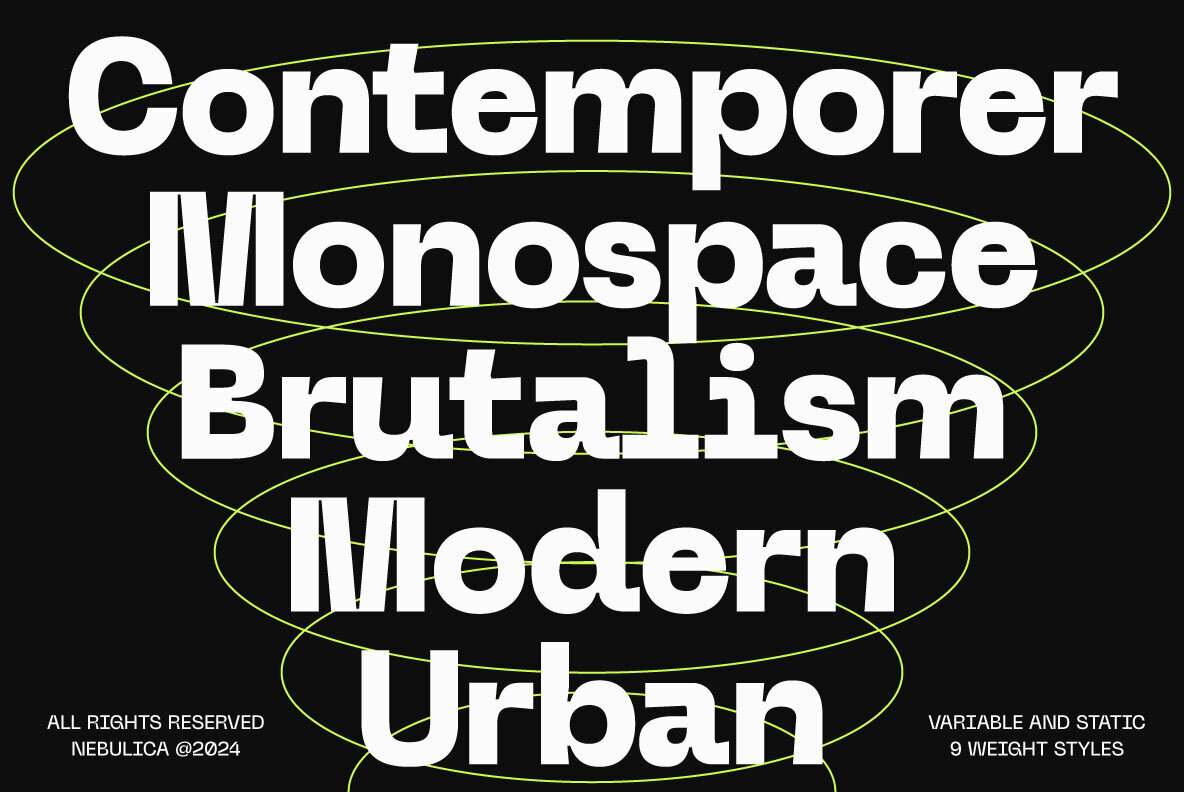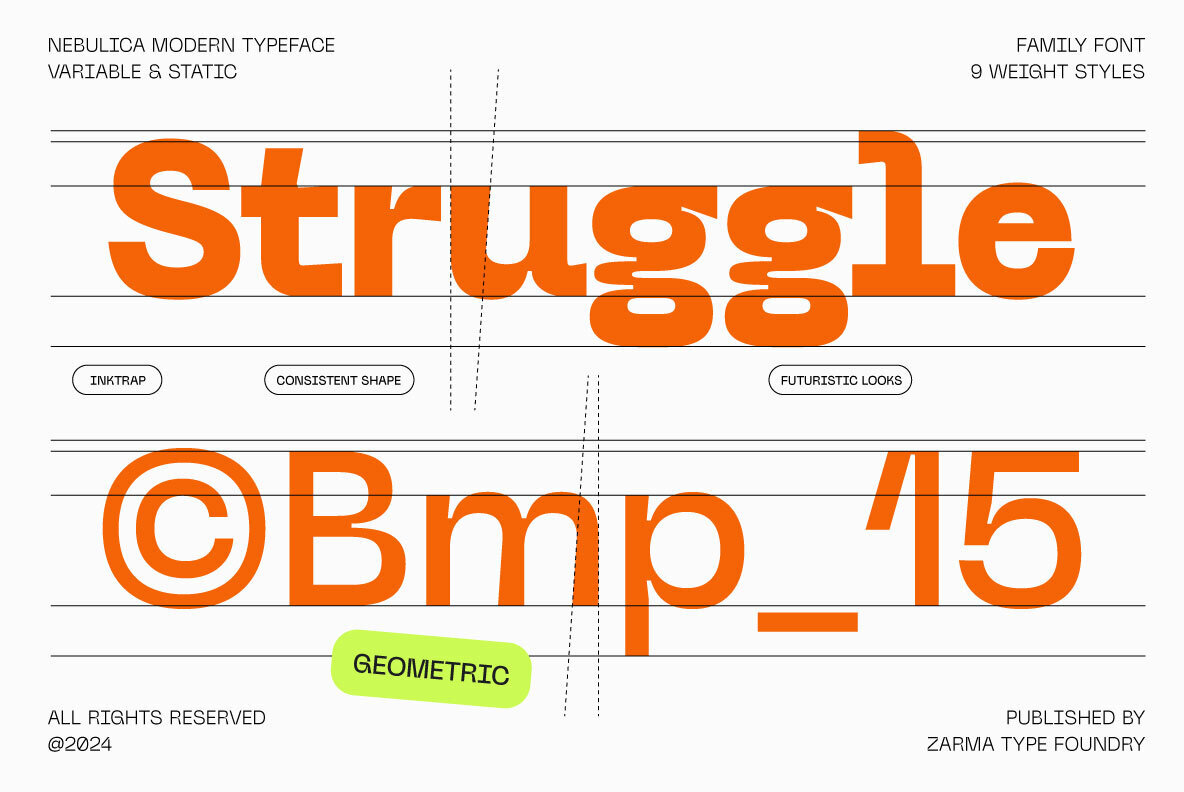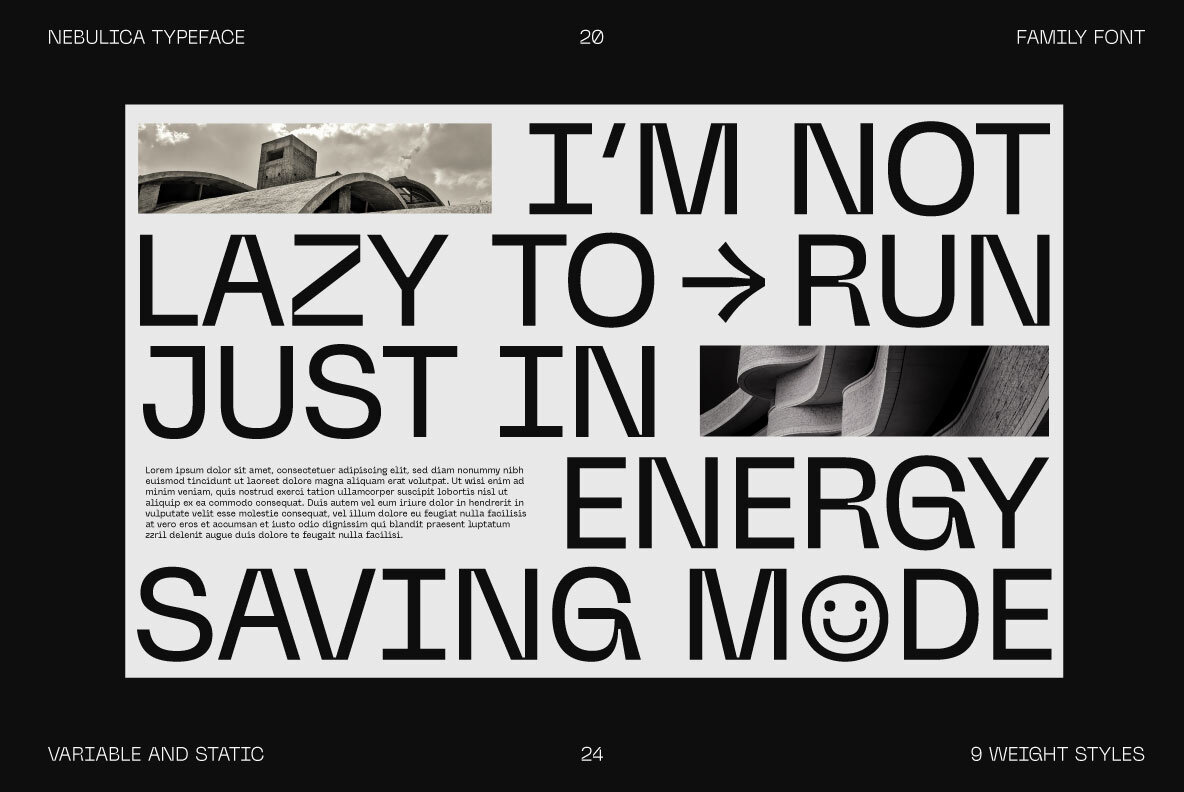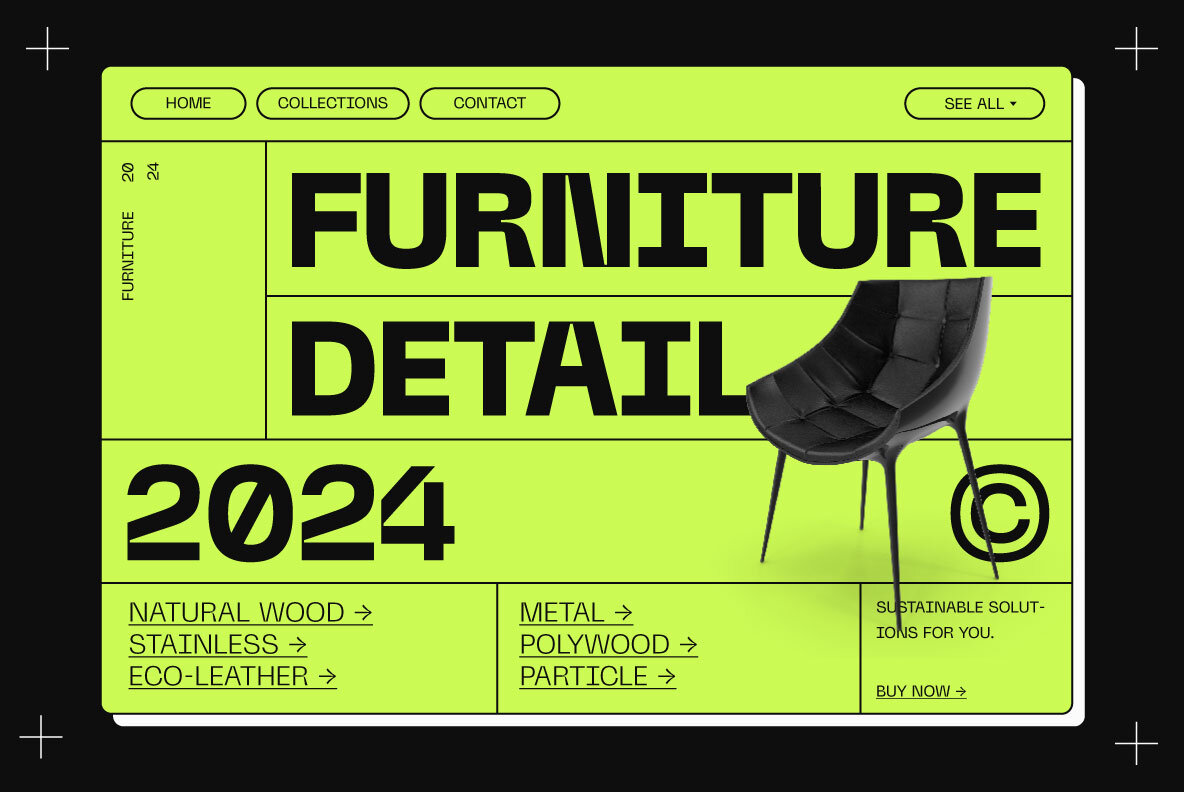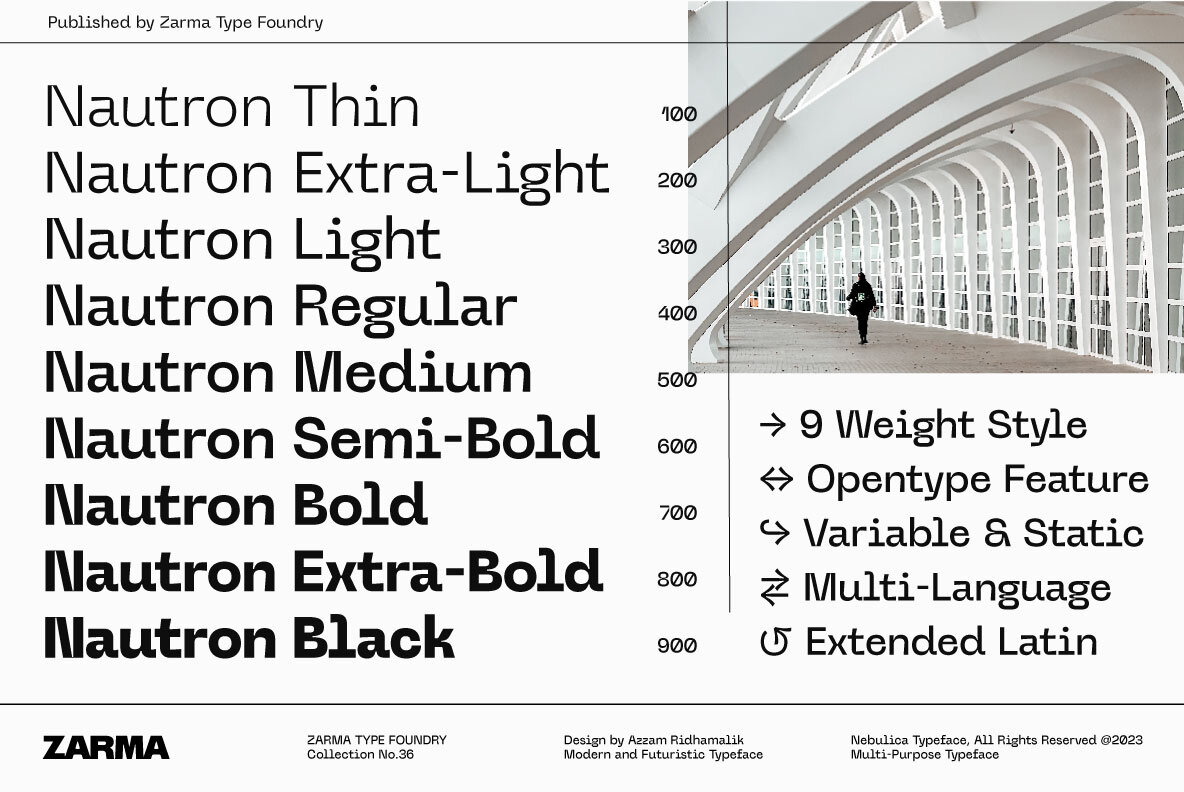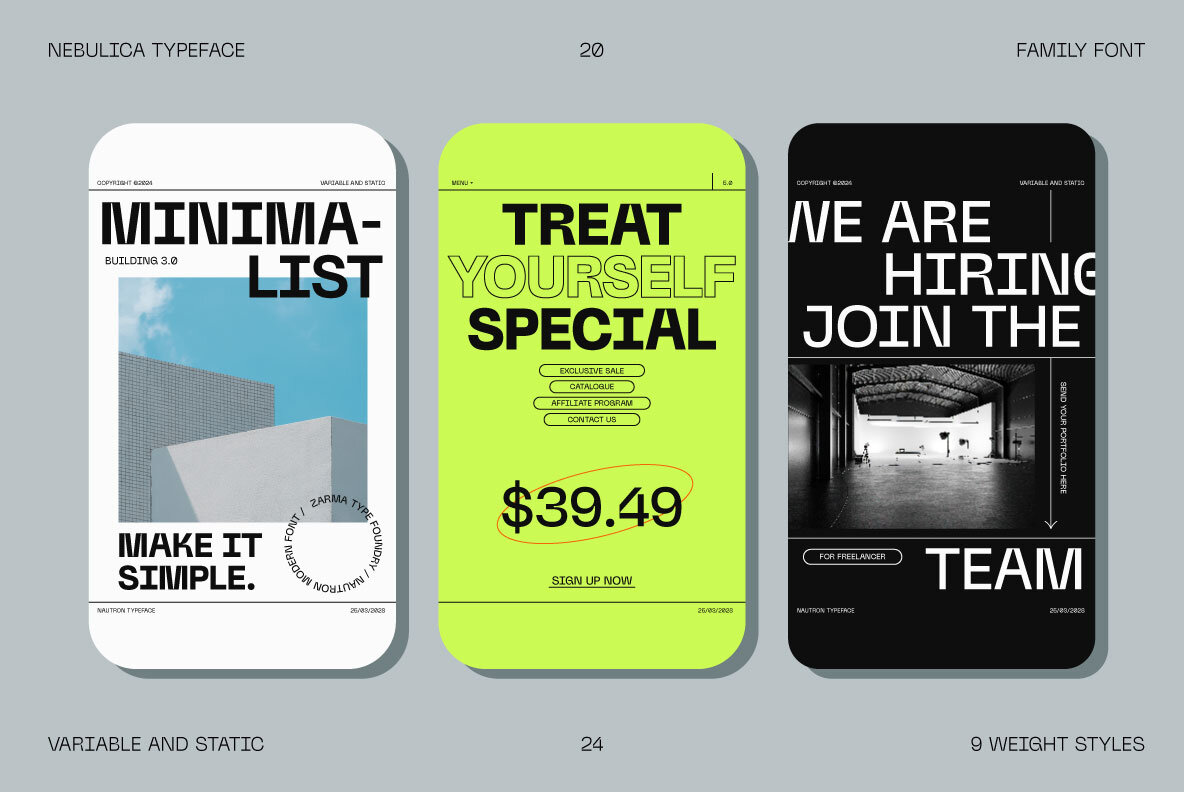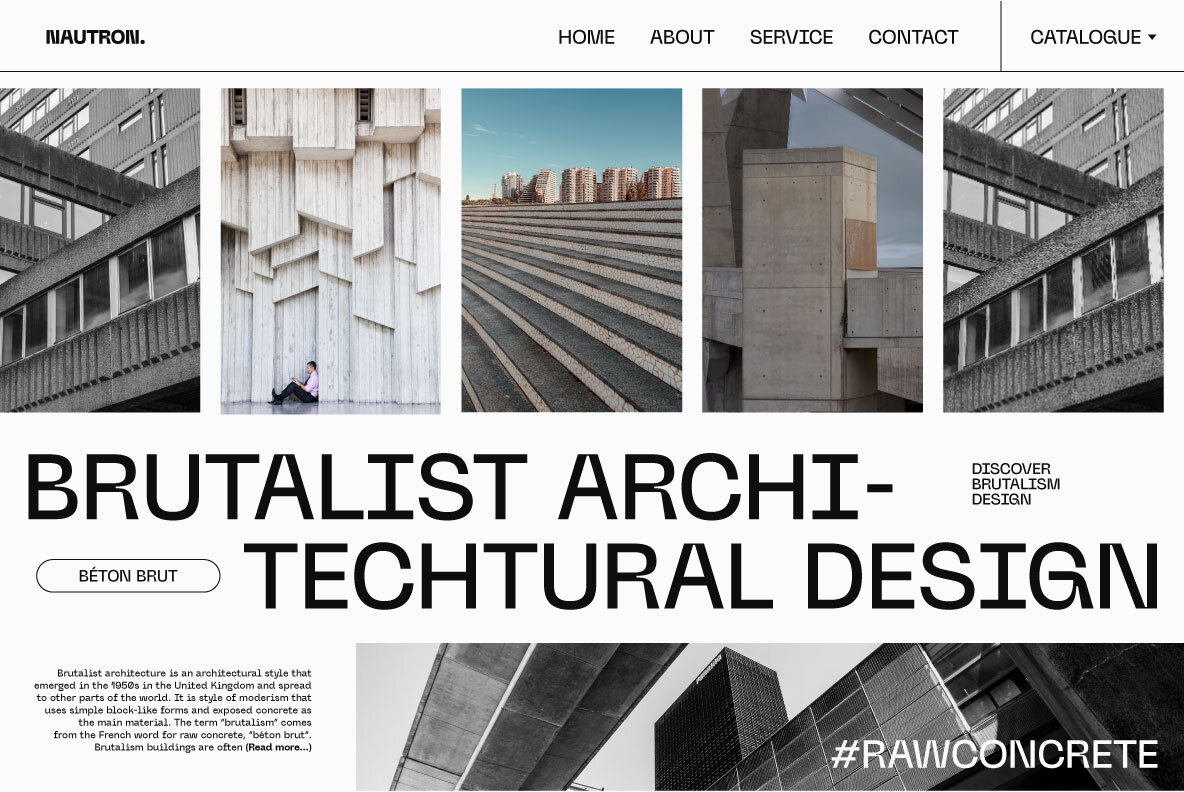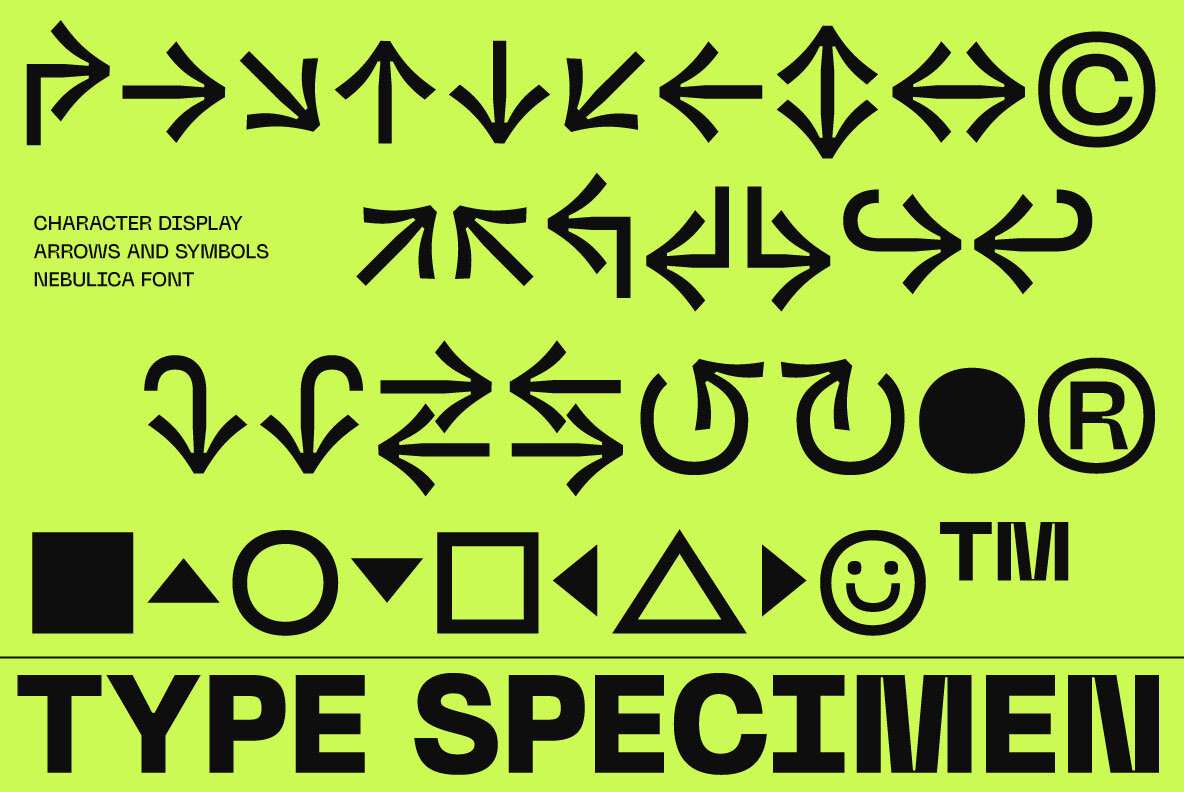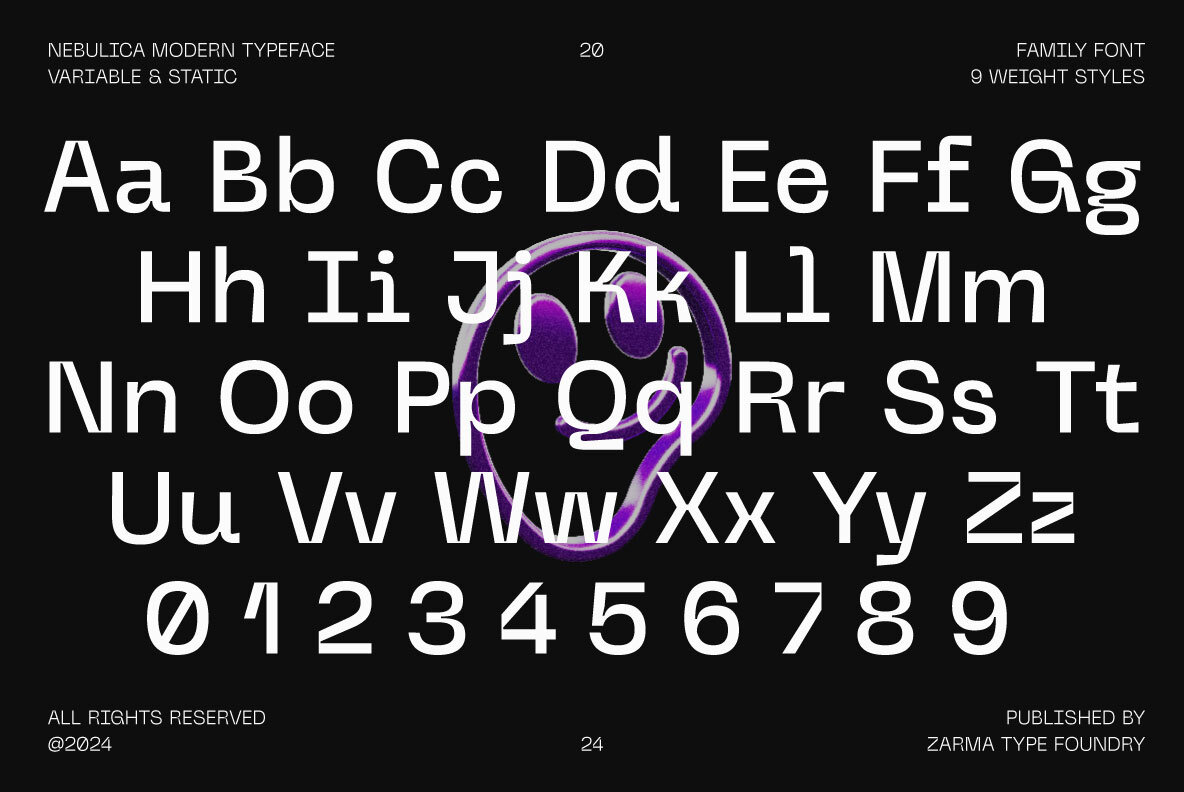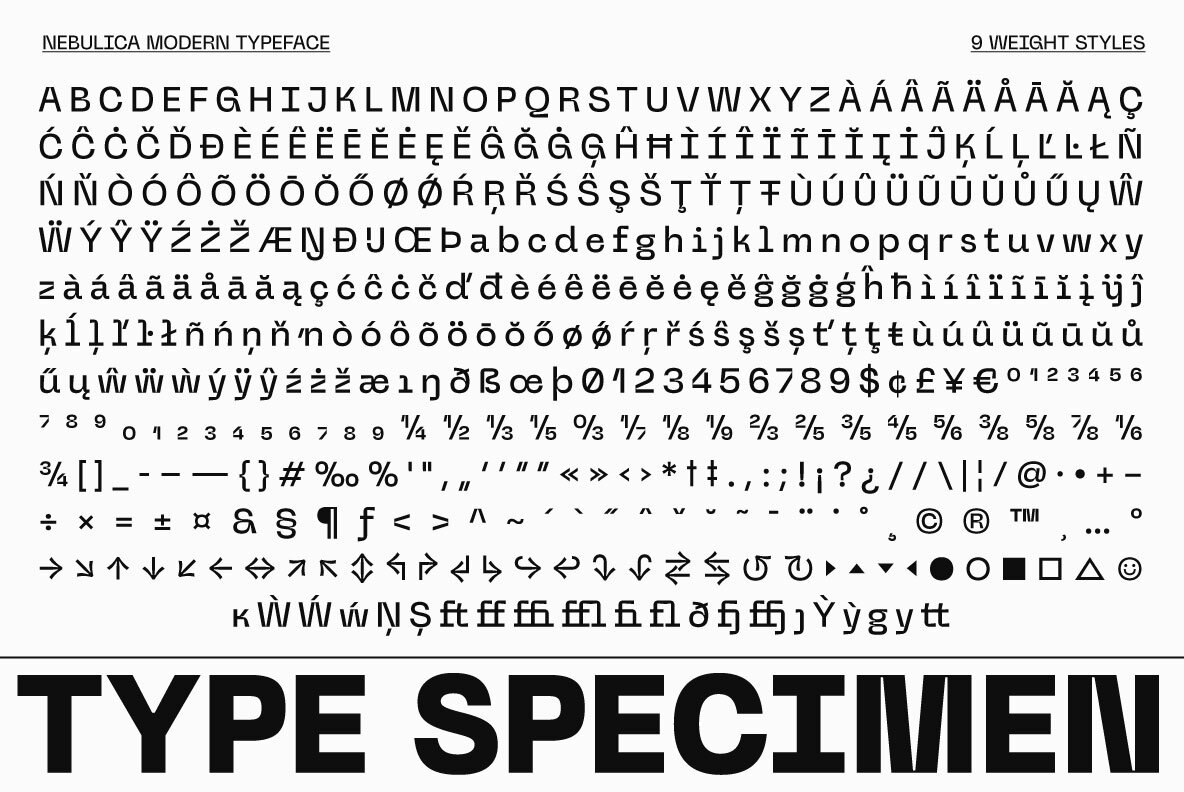
Nebulica Font
Grotesk Font Nebulica is a experimental font that seamlessly blends grotesk and monospaced typeface elements, resulting in a distinctly modern aesthetic. Inspired by contemporary urban design trends, Nebulica stands out with its unique features, including inktraps and slanted stems, ensuring consistency and legibility across various design projects. Variable font format available to give lots of options and access to unique type looks Nebulica supports variable font formats and a wide range of OpenType features, offering versatility and flexibility for designers. Its exceptional readability, 435+ glyphs, and multilingual support for over 88 languages, along with arrows and symbols, make it an ideal choice for a variety of applications. Whether you're working on futuristic, minimalist, or technology themed design projects, Grotesk Font Nebulica is perfect for layout design, web design, and interface design, delivering a sleek and sophisticated look that captures the essence of modernity. Features: